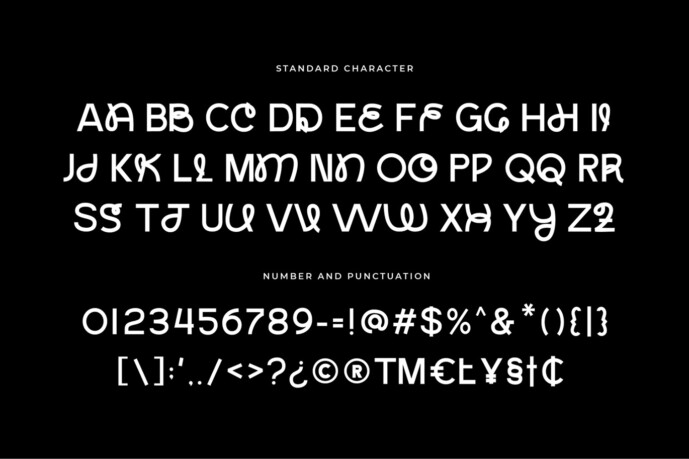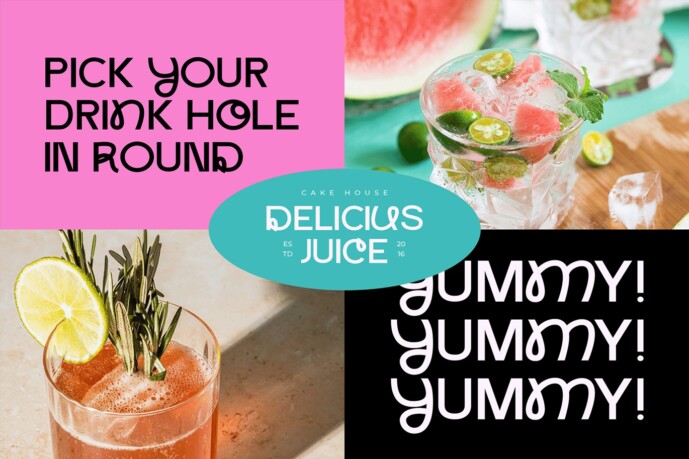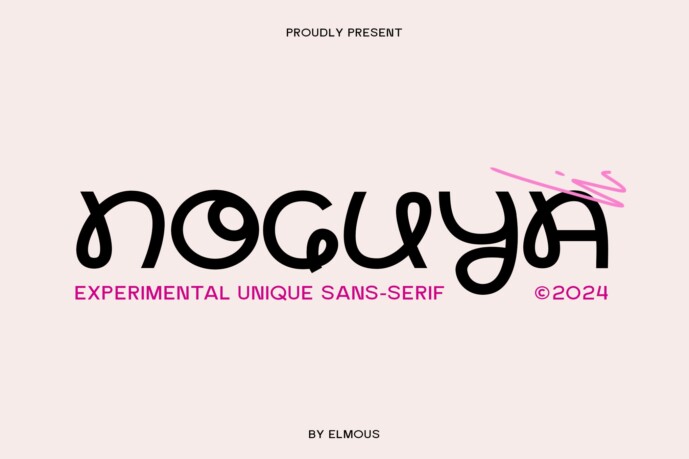
Noguya Font
Noguya Font is a unique and experimental sans-serif that has a playful and rounded appearance with curves and loops that give it a friendly and informal atmosphere. This font has a playful and modern style.
Suitable for a wide variety of projects such as display font for headlines, logo fonts, invitations, branding, book covers, magazine layouts, cards, product packaging, product mockups, mugs, posters, labels, editorials, art deco and any kind of advertising purposes.